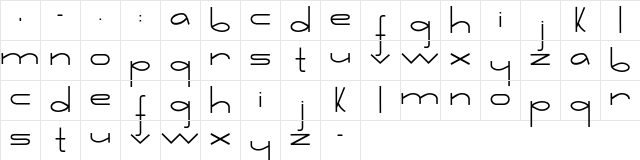
Retorica Medium Free Font
Retorica Medium
Retorica Family
Retorica Medium
Design Context for Retorica
Retorica is a composed and adaptable typeface that performs quietly and consistently across a wide range of design contexts.